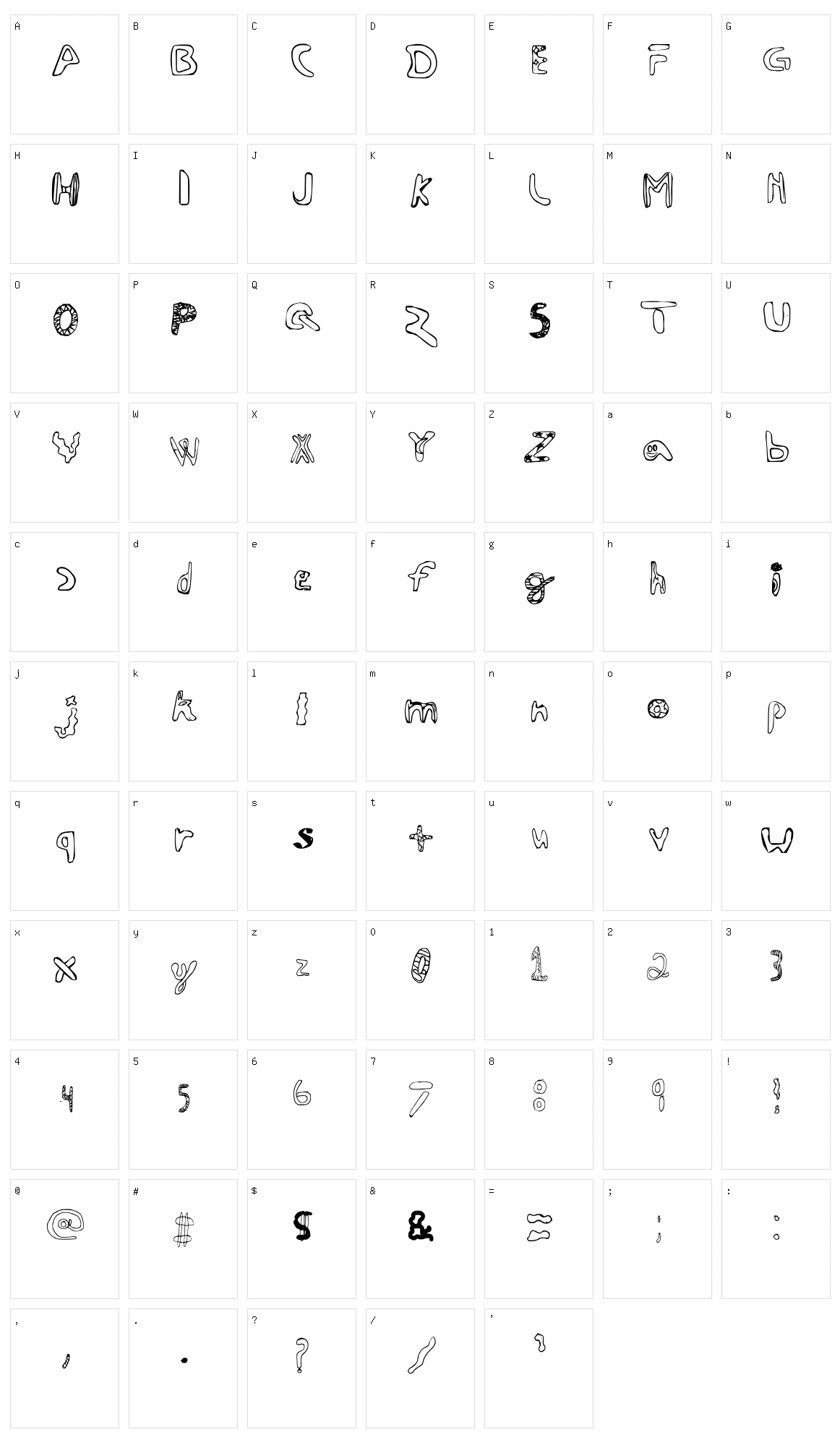
The free font Chaotic is carefully designed by Tatianna Kirkland, showcasing a thoughtful balance of creativity and usability and falls under the Cartoon font style. When you download the ZIP file, it contains only 32.17 KB of font files, making it lightweight and quick to download. Please review the license details below to understand permitted usage and distribution rights. If license information is not available, we recommend using this font for personal projects only or contacting the author directly for commercial usage permissions.